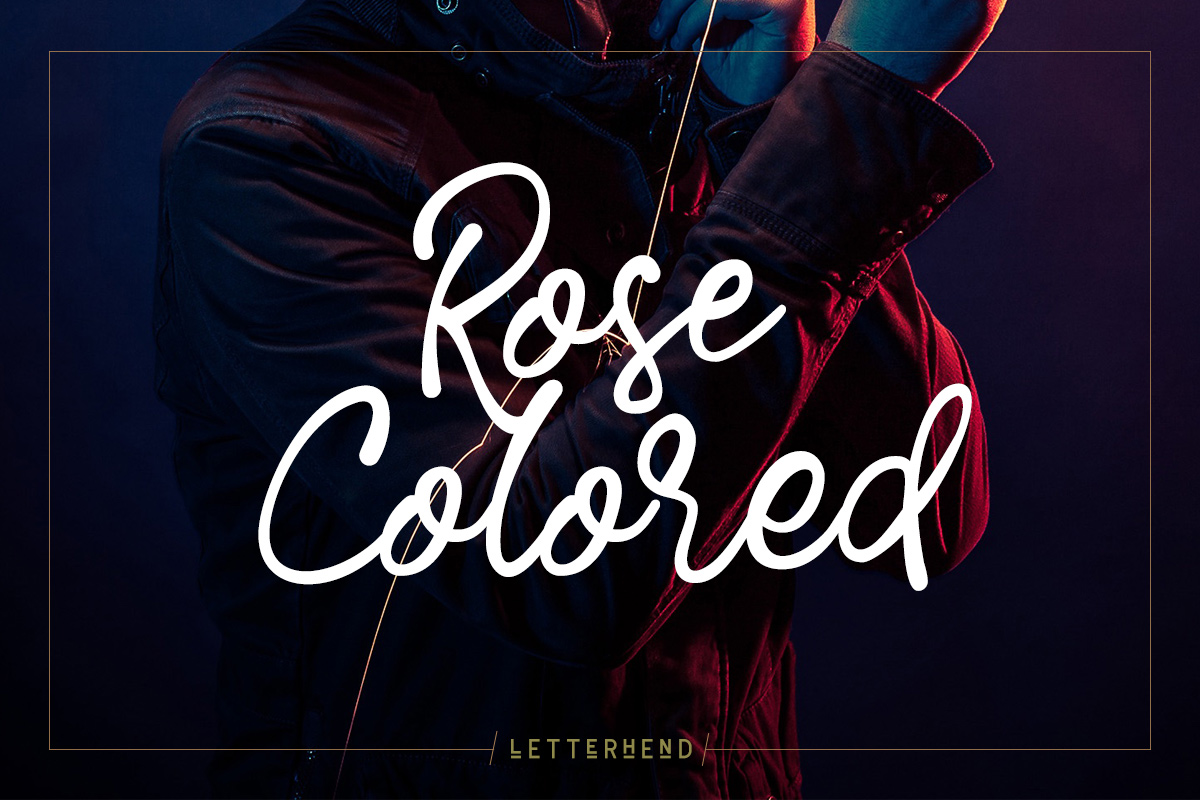
Rose Colored Font
Rose Colored Font is perfect for romantic valentine's designs, dreamy wedding stationery, feminine beauty brand packaging, soft lifestyle blog headers, vintage-inspired greeting cards, delicate flower shop signage, whimsical children's book covers, gentle wellness spa branding, artistic craft project labels, and nostalgic social media graphics. This enchanting typeface brings tender warmth to romantic restaurant menus, vintage fashion boutiques, artisanal cosmetic lines, heartfelt personal branding, and sentimental memory book designs.
Rose Colored Font is exciting because it embodies the essence of romantic optimism and dreamy nostalgia through its soft, approachable letterforms. The font features gently rounded characters with subtle curves and warm visual texture that evoke feelings of comfort, love, and gentle beauty reminiscent of rose petals and sunset hues. Its distinctive soft appearance and carefully balanced proportions create an atmosphere of warmth and positivity that instantly connects with audiences seeking emotional comfort and romantic inspiration. The font's optimistic charm makes it perfect for brands wanting to communicate hope, love, and gentle sophistication in their visual storytelling.
The Rose Colored Font family includes various tender styles: Light, Regular, Bold, Soft, Dreamy, Vintage, Outline, Shadow, Textured, Script, Decorative, and Seasonal variants. Each family member maintains the core romantic DNA while offering different levels of softness for diverse sentimental design applications. The comprehensive font collection ensures consistent emotional branding across romantic campaigns, lifestyle products, and heartfelt communication materials.
Whether you're creating romantic brand identities, designing heartfelt greeting cards, developing dreamy website headers, or crafting sentimental marketing materials, Rose Colored Font delivers exceptional emotional appeal and gentle sophistication. The font's distinctive warm personality excels in romantic logos, tender packaging design, nostalgic applications, and lifestyle branding where emotional warmth and optimistic beauty are essential.